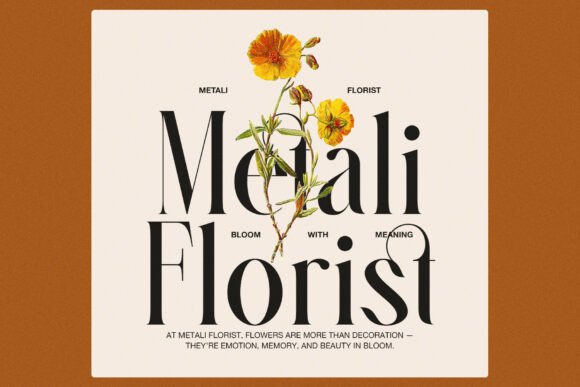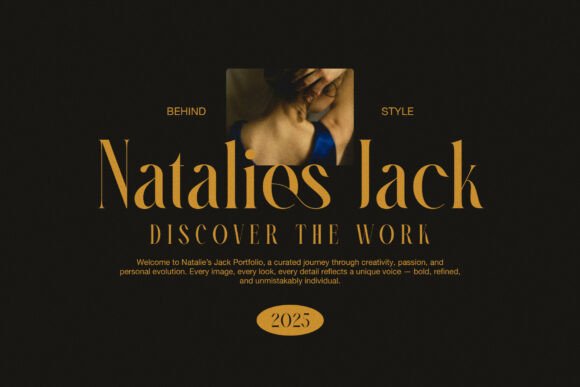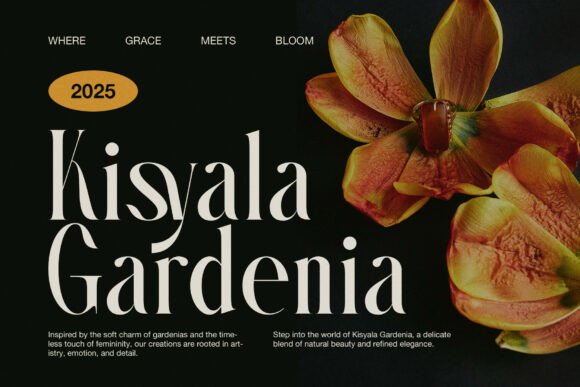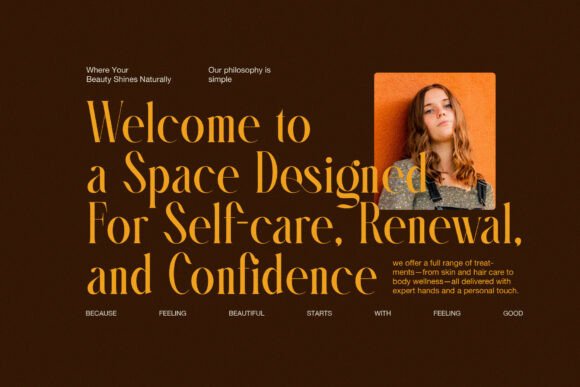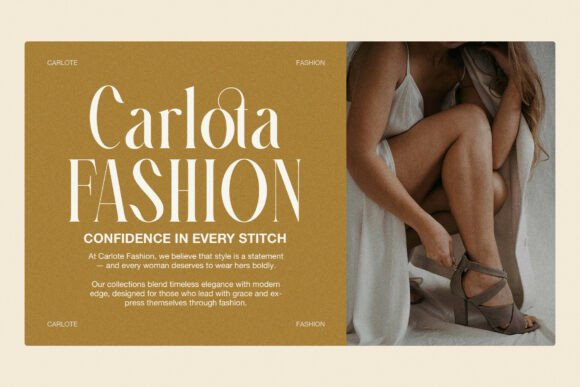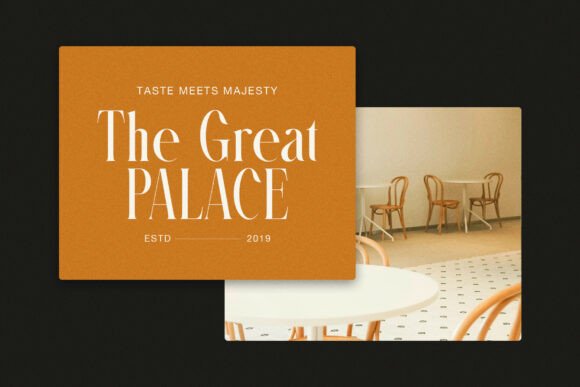
Introduction to Nesty Font
Have you ever been stuck on a creative project, desperately searching for the perfect font to elevate your design? You know, that moment when you need a font that not only captures the essence of your brand but also leaves a lasting impression on your audience.
That’s where Nesty Font comes in – a modern serif typeface that combines classic beauty with a modern twist. As a designer, you understand the importance of having a high-quality design resource at your fingertips. Nesty Font is that resource, offering a clean and elegant design that’s perfect for a wide range of creative projects, from logos and branding to magazine covers and website headers.
With Nesty Font, you can achieve a premium and professional look without sacrificing readability. Its smooth curves, refined edges, and functional ligatures make it an ideal choice for designers who want to create stunning visuals that stand out in a crowded market.
Key Features of Nesty Font
- High-quality, unique font design ideal for creative projects requiring a distinctive touch.
- Features a large character set with extended Latin support, making it suitable for a wide range of languages.
- Perfect for use in logos, branding materials, and other design elements where a distinctive, creative touch is desired.
Honest Review: Nesty Font
As a designer, I’m always on the lookout for high-quality design resources to elevate my creative projects. Recently, I stumbled upon the Nesty Font, and I’m excited to share my honest review with you.
What works well: ✨ The Nesty Font is incredibly versatile and can be used for a wide range of creative projects, from logos to branding materials. Its modern and sleek design makes it perfect for digital applications. I also appreciate the fact that it comes with a transparent background, which allows for seamless integration into any design.
Overall, I’m impressed with the Nesty Font’s quality and versatility. If you’re looking for a high-quality design resource for your creative project, I’d definitely recommend checking it out.
- Perfect for digital applications
Nesty Font
The Nesty Font is ideal for creative projects that require a unique and eye-catching design. Some common use cases include:
- Graphic design and branding
- Print design and marketing materials
To get the most out of Nesty Font, experiment with different font sizes, colors, and styles to create unique and visually appealing designs. Also, consider combining Nesty Font with other design resources to create a cohesive and professional look.
Alternatives to Nesty Font
Pacifico Font is a high-quality, cursive font ideal for creative projects that require a touch of elegance. It’s perfect for wedding invitations, quotes, and other design elements that need a sophisticated feel. Pacifico Font is available for free download and can be used with a transparent background, making it a great design resource.
Compared to Nesty Font, Pacifico Font has a more refined and classic look, making it suitable for formal and professional designs. While Nesty Font is more playful and informal, Pacifico Font is ideal for projects that require a sense of sophistication and elegance.
Great Vibes Font is a beautiful, modern font that’s perfect for creative projects that need a fresh and youthful feel. It’s great for headings, titles, and other design elements that require a high-quality and stylish look. Great Vibes Font is available for free download and can be used with a transparent background, making it a versatile design resource.
Can I customize Nesty Font to fit my design needs?